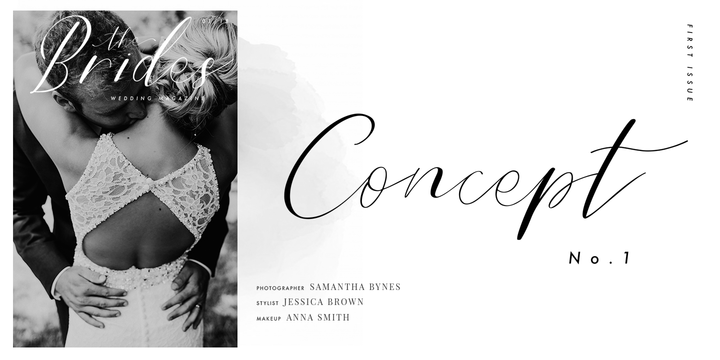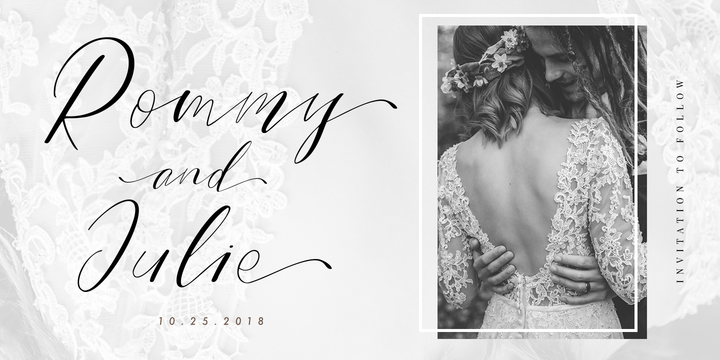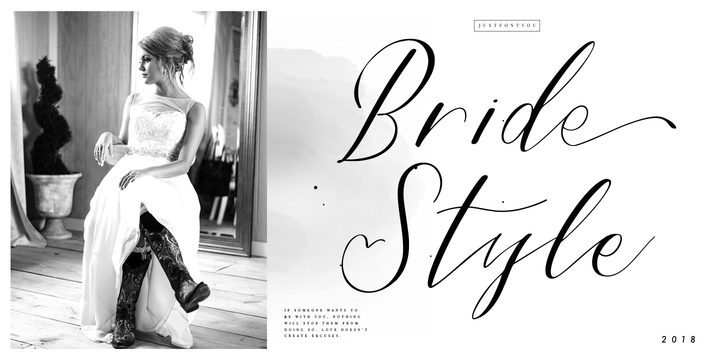
Bride Style, A sweet beautiful delicate script font. Inspired from the wedding modern calligraphy style but presented in a fashion editorial way.
Perfectly fit for branding, logo, wedding things, greeting cards, fashion, lookbook, moodboard, presentation, imagine the luxury, beautiful, stylish, and casual in the same time.